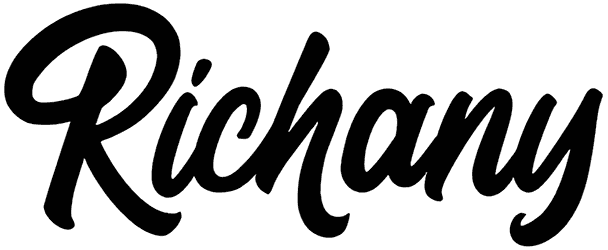
Richany Font
Want a script font that is both elegant and expressive? All you need is Richany. This professional font’s clean lines and careful attention to detail make it a great choice for any project that would benefit from an air of sophistication.